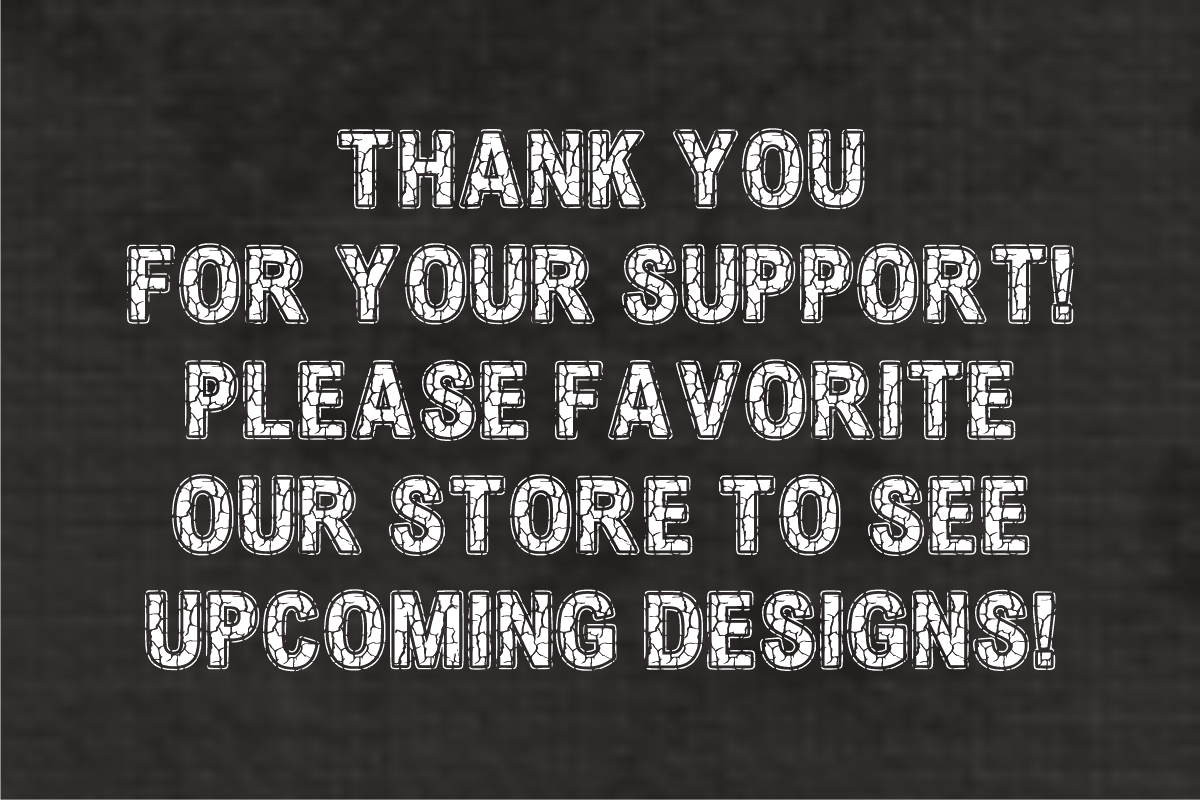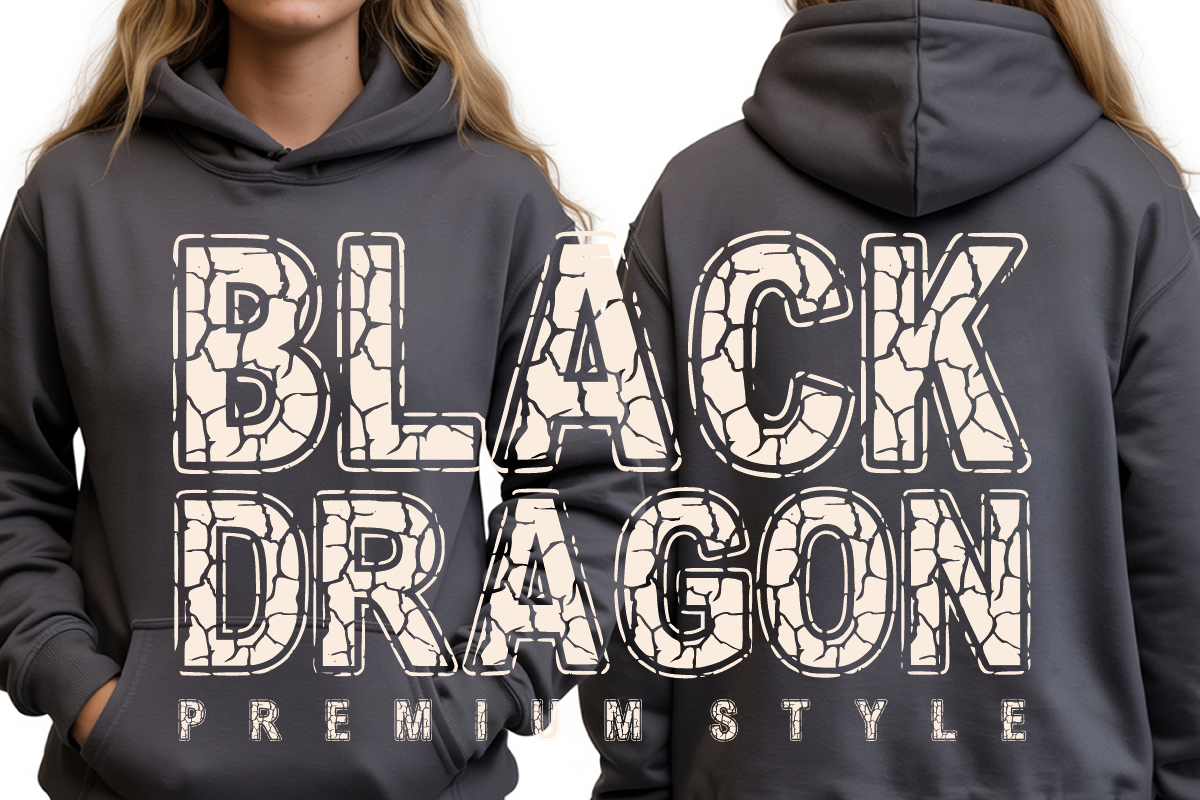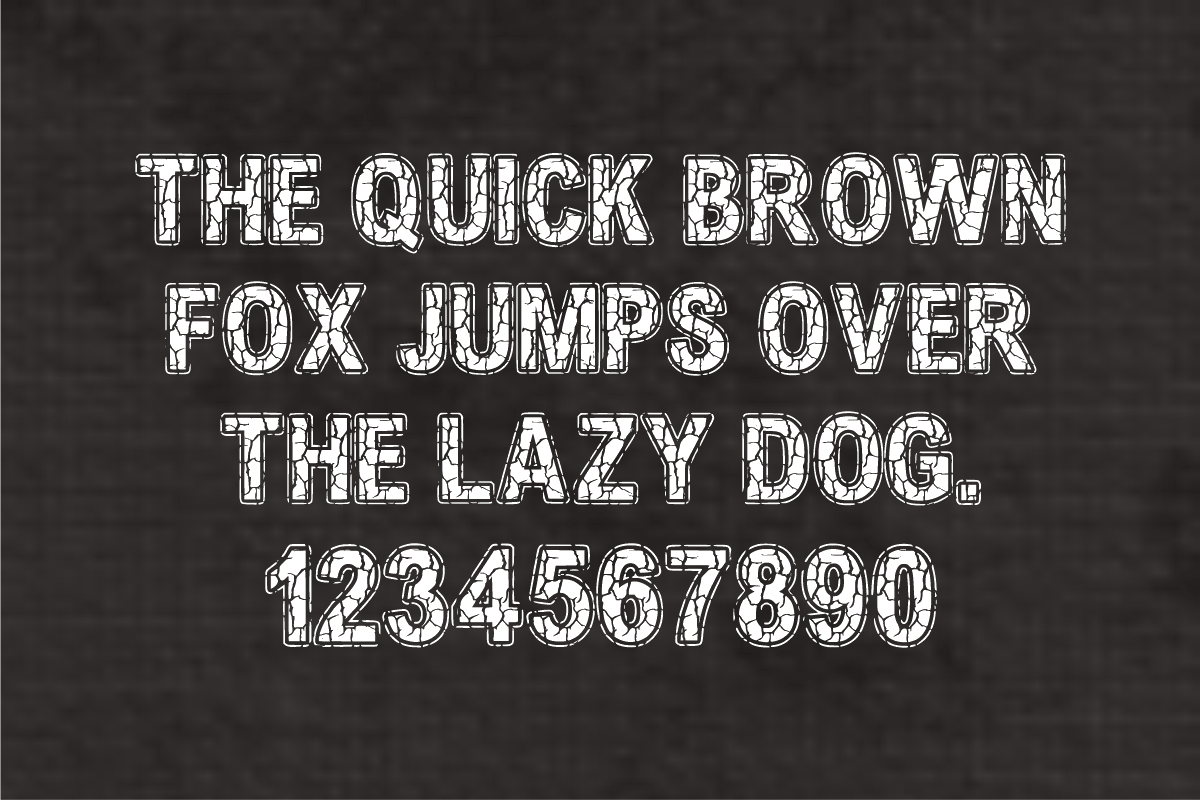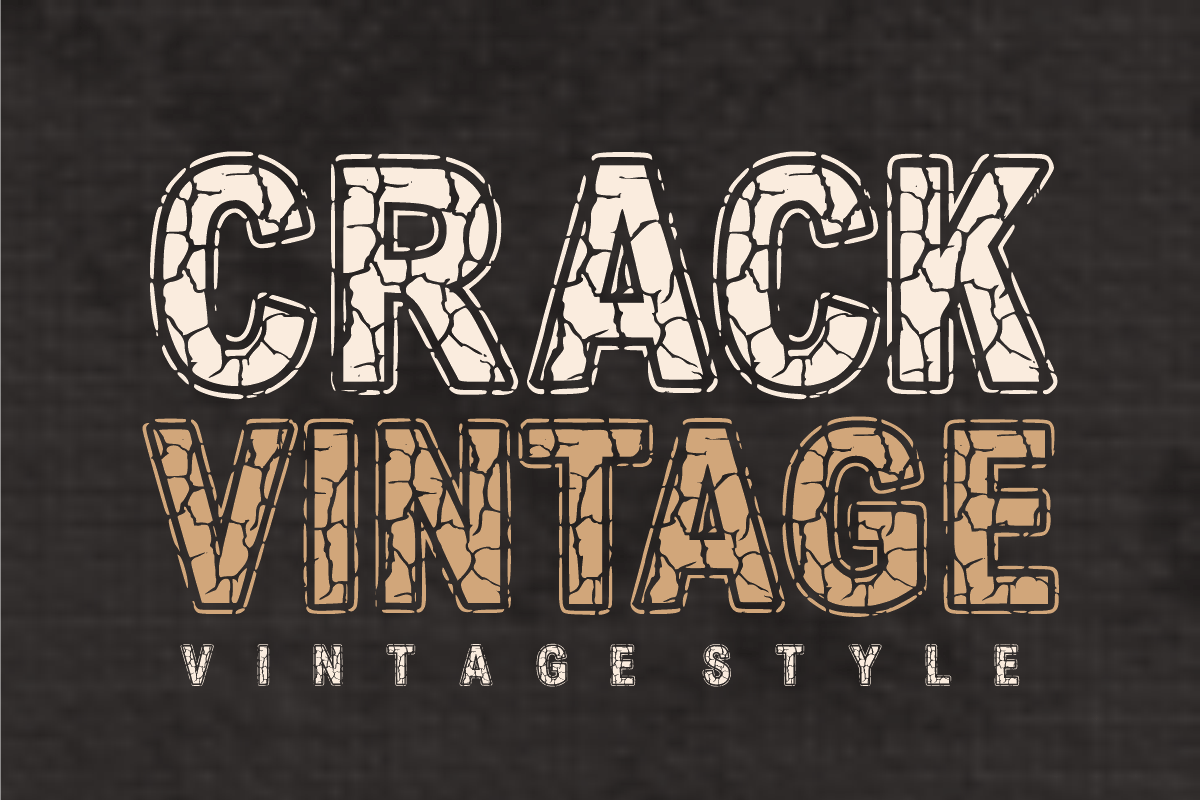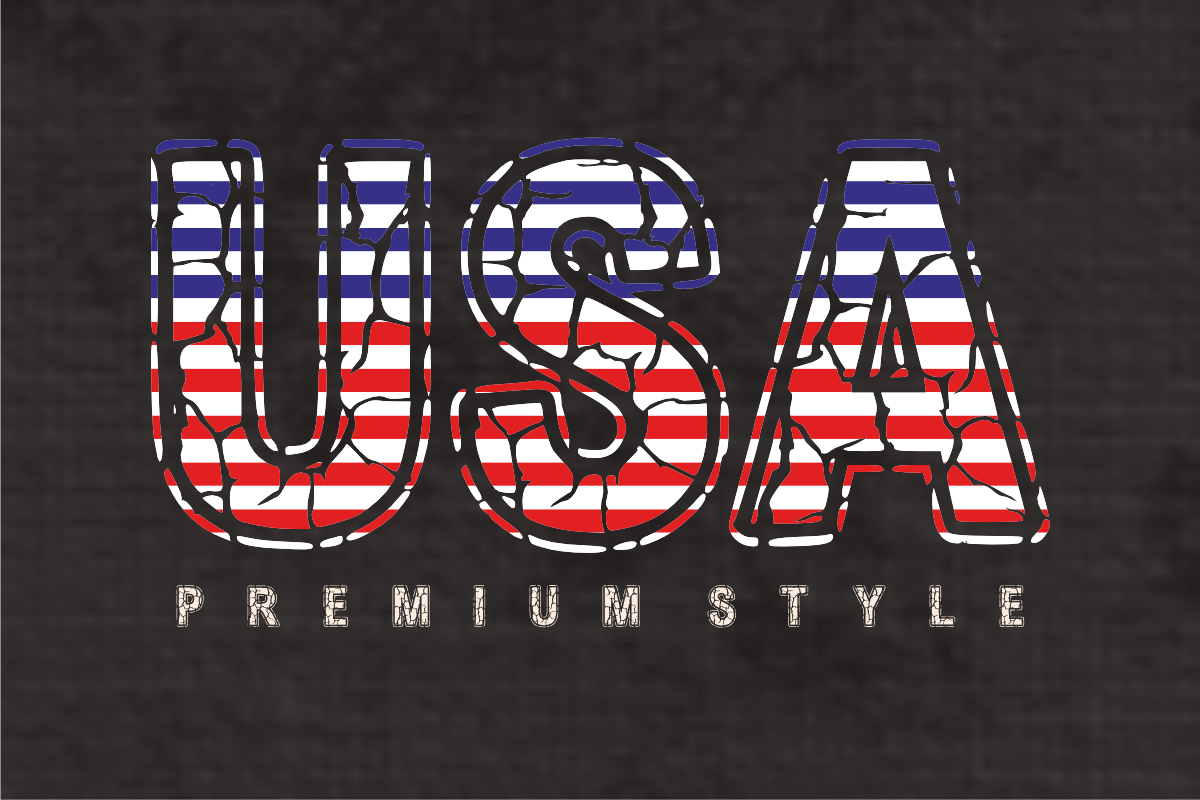
Crack Vintage- Distressed Retro Font
Crack Vintage is a bold, rugged display font featuring heavy crackle textures and clean outlined letterforms. Capturing an authentic weathered aesthetic, this retro-inspired font brings a rustic, high-impact vibe to vintage apparel, outlaw logos, posters, and craft projects. Every character is cleanly vectorized to guarantee high-resolution prints and smooth crafting on Cricut and Silhouette machines.
Uppercase Character Set
Numbers & Basic Punctuation